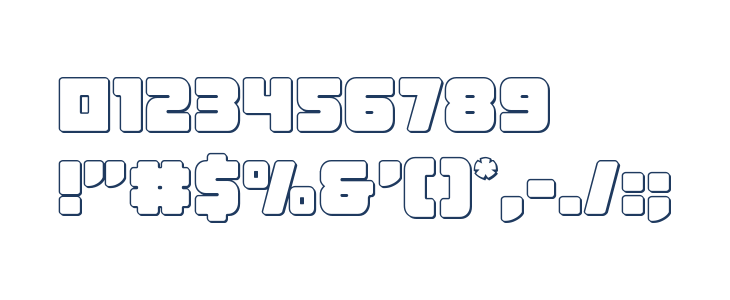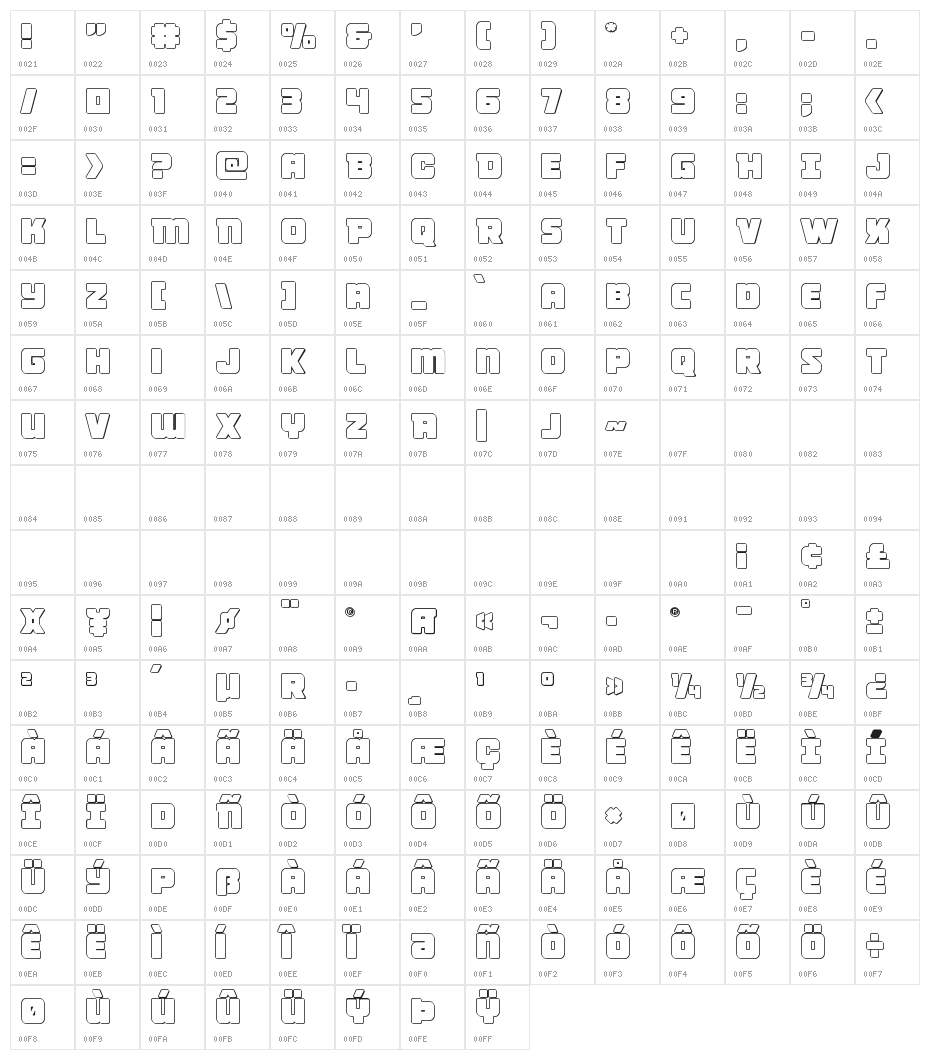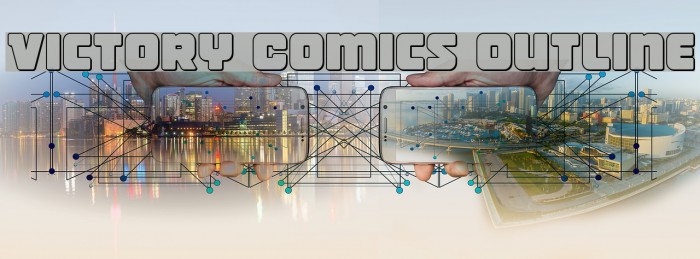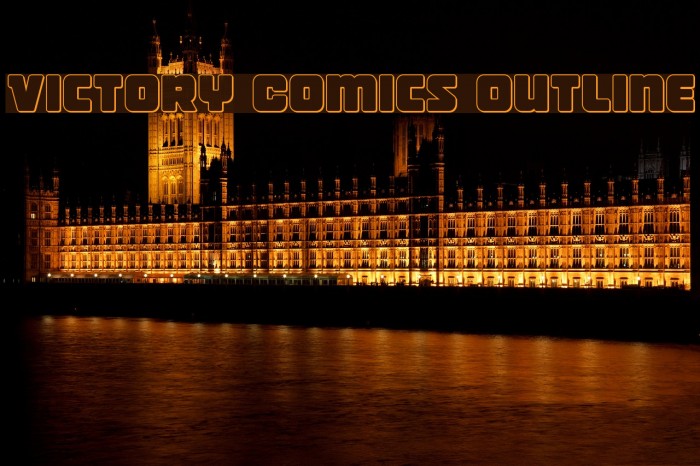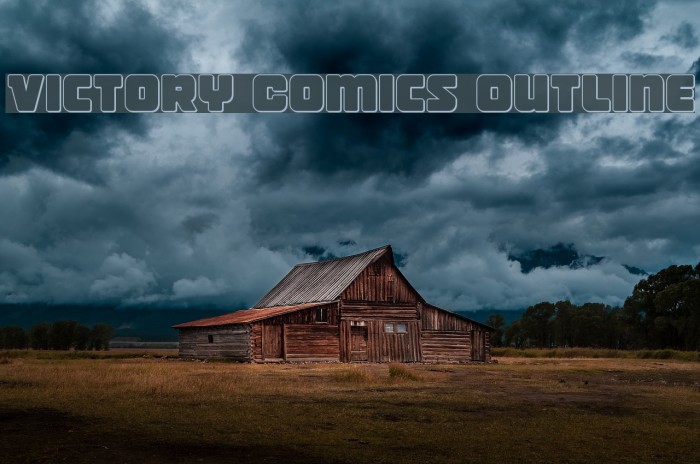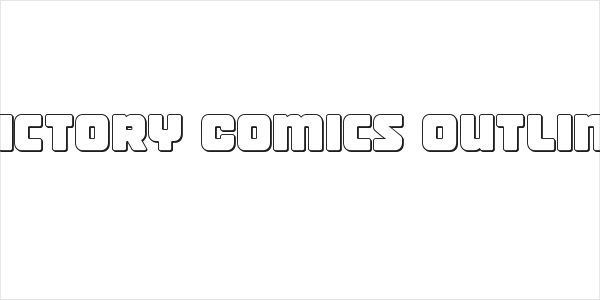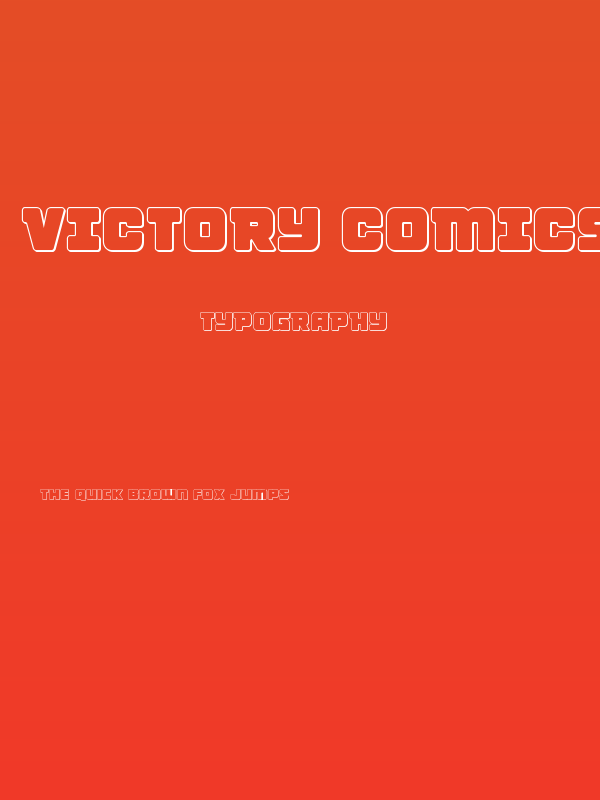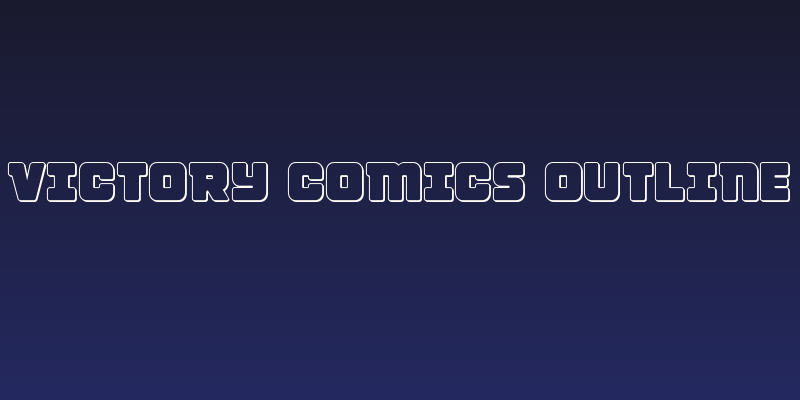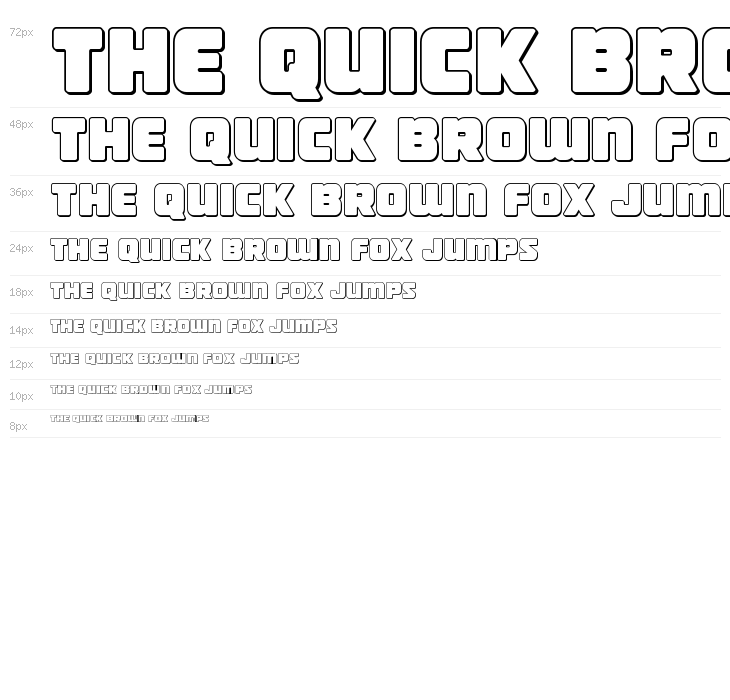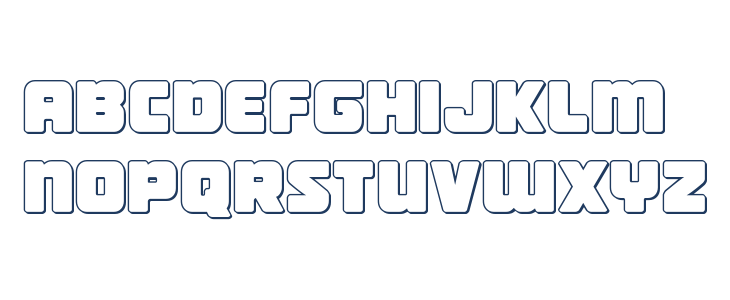
Victory Comics Outline Font
Victory Comics Outline Description
This font features a bold, outlined style that exudes a playful and energetic vibe. The characters are blocky and geometric, with rounded edges that soften the overall appearance. The uppercase and lowercase letters maintain a consistent height, contributing to a uniform look. The numbers and special characters are designed to match the boldness and outline of the alphabet, ensuring a cohesive appearance across all glyphs. This font is ideal for projects that require a fun and engaging aesthetic, such as comic books, children's materials, or playful branding.
| Overall Style | Playful, Energetic, Modern |
| Proposed Projects | Comic books, children's materials, playful branding, posters, and merchandise. |